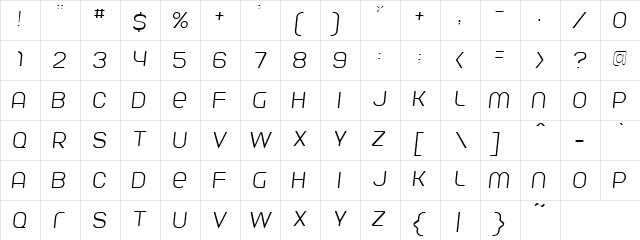
Parvoflavin Light Skew
Design Context for Parvoflavin Typeface
Parvoflavin is a composed and adaptable typeface that performs quietly and consistently across a wide range of design contexts. Its slender proportions lend an understated elegance to any composition.